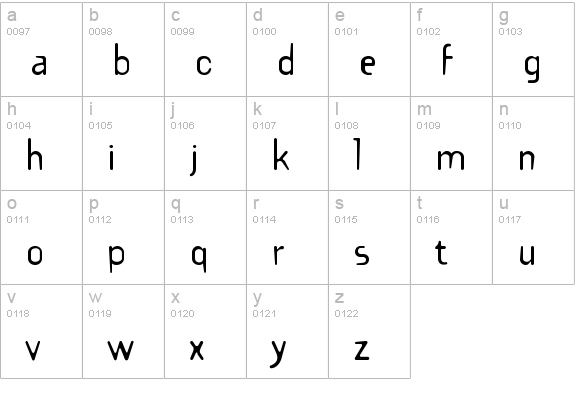
TemplateGothicA Font Details
Introducing TemplateGothicA, a stunning font that effortlessly combines elegance and modernity. This font is perfect for those seeking a unique and edgy look that will make a bold statement in their designs. With its sharp and clean lines, TemplateGothicA exudes a sense of sophistication and professionalism. It is versatile enough to be used in a wide range of design projects, from sleek corporate presentations to eye-catching logos and branding materials. What sets TemplateGothicA apart is its free availability. That's right, this incredible font can be downloaded for free at FontsMarket.com. This means that you can enjoy the benefits of this exceptional font without breaking the bank. Whether you're a professional designer, a business owner looking to revamp your brand, or a creative individual wanting to add a touch of style to your personal projects, TemplateGothicA is the ideal choice. Its sleek and modern aesthetic will instantly elevate your designs and captivate your audience. So why wait? Take advantage of this amazing opportunity to enhance your designs with the remarkable TemplateGothicA font. Download it for free today at FontsMarket.com and let your creativity shine.